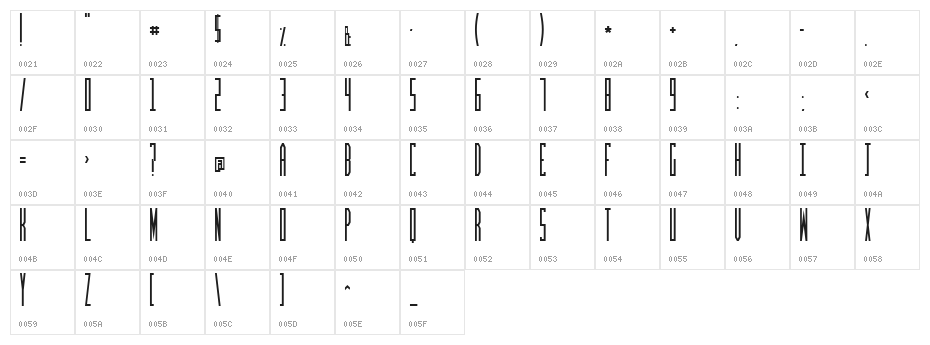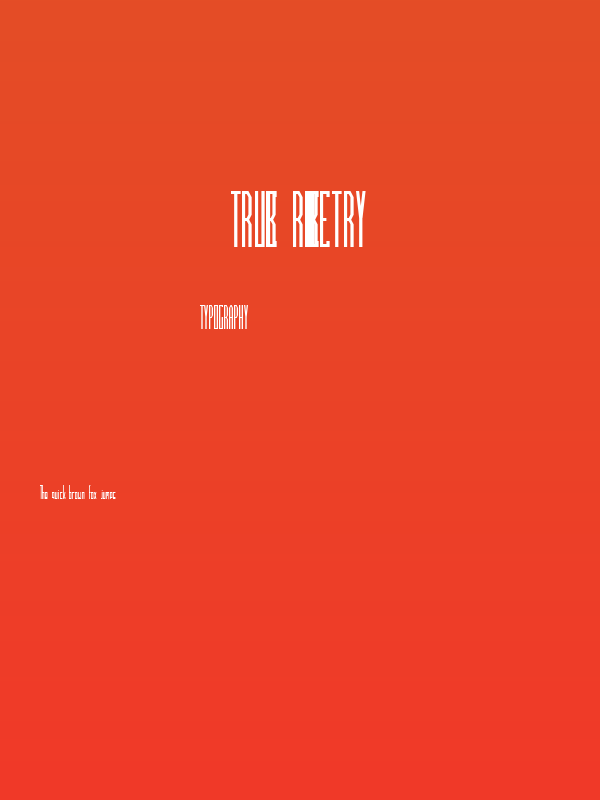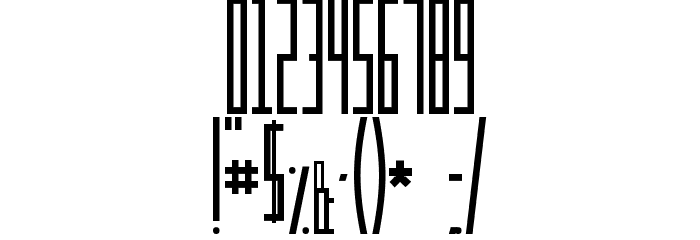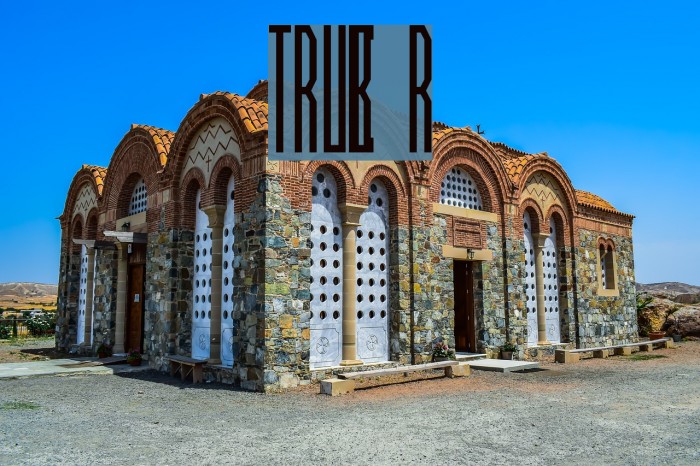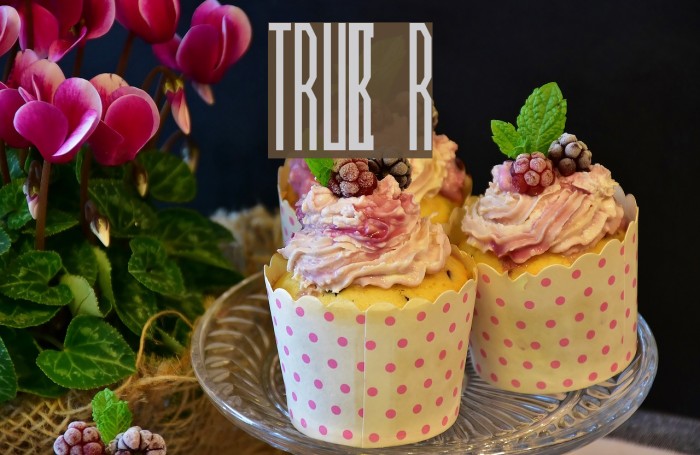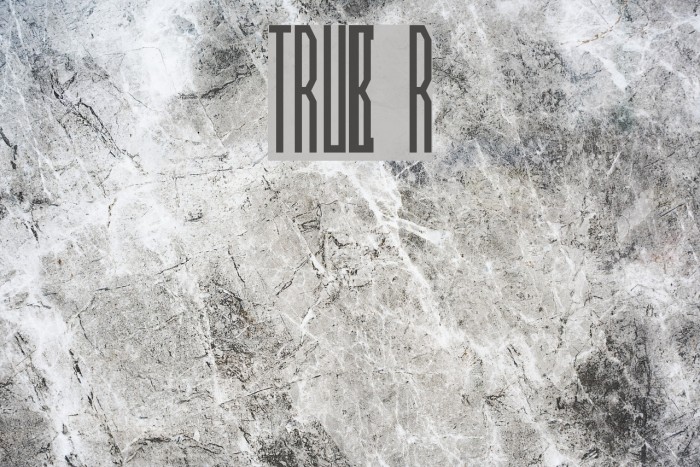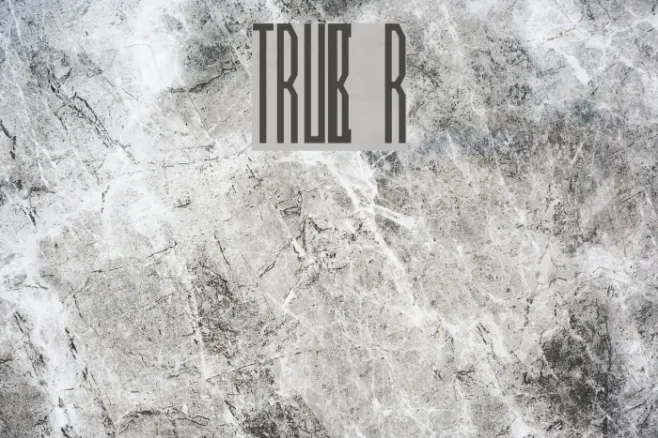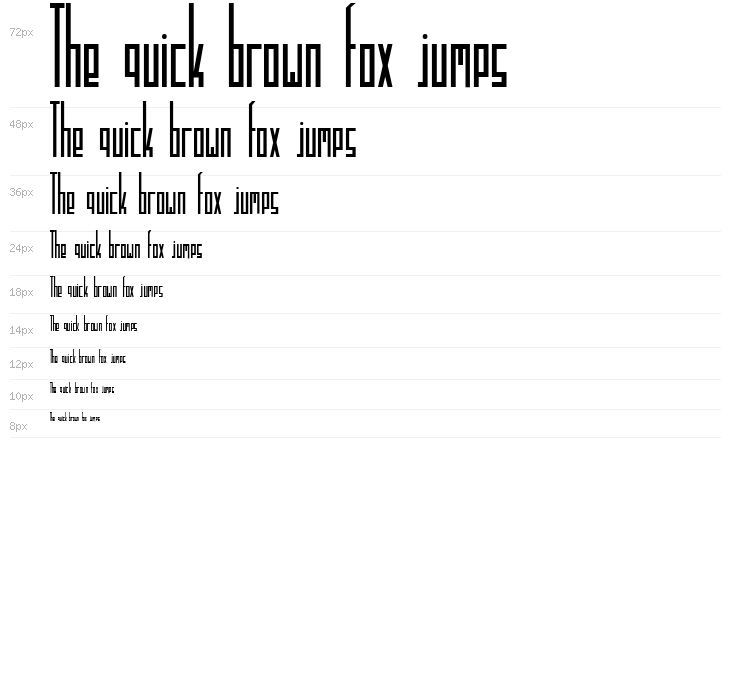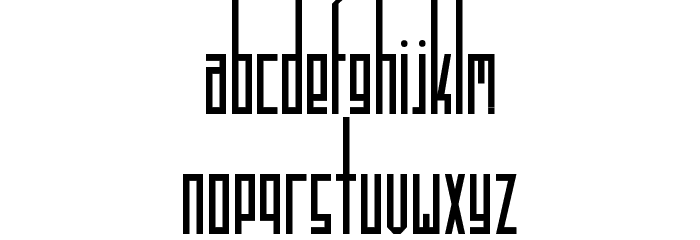
TRUCK Rocketry Font
TRUCK Rocketry Description
This font features a tall, narrow design with a distinctly modern and futuristic aesthetic. The uppercase letters are elongated and have a geometric structure, giving them a sleek and streamlined appearance. The lowercase letters maintain the same narrow proportions, creating a cohesive look across the typeface. The numerals and special characters follow the same design principles, ensuring consistency. The font's vertical emphasis and clean lines make it stand out, ideal for projects that require a bold and contemporary feel.
| Proposed Projects | Ideal for technology branding, sci-fi posters, modern art installations, and innovative product packaging. |